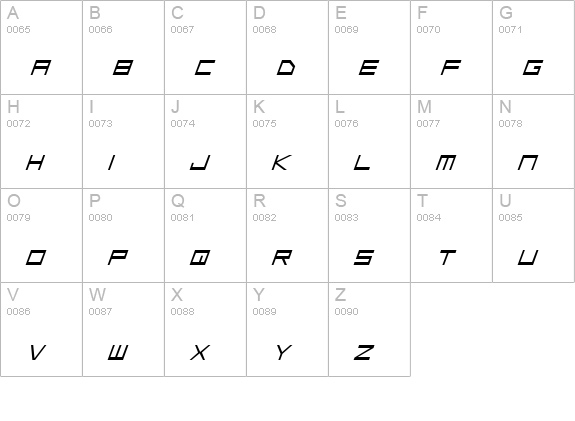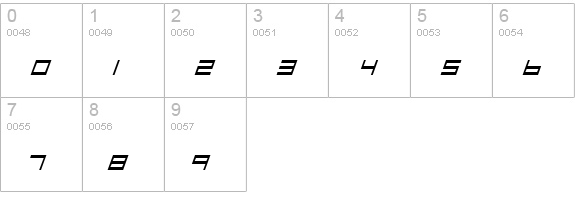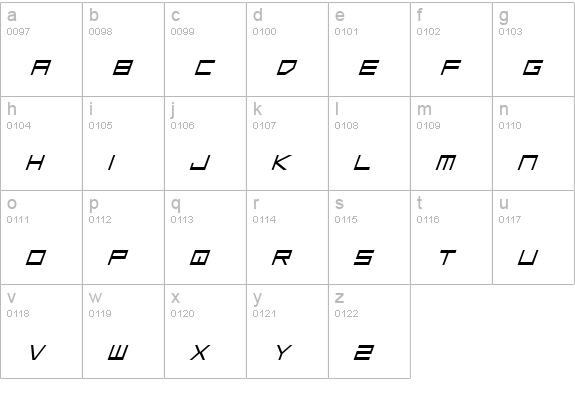
Low Gun Screen Italic is a distinctive, italic variant in the Low typeface family \xE2\x80\x94 well suited to design and typography projects.
Introducing Low Gun Screen Italic font, a sleek and modern typeface that exudes sophistication and style. With its unique italic design, this font adds a touch of elegance to any project. Perfect for branding, logos, headlines, and more, Low Gun Screen Italic is a versatile choice for designers looking to make a statement. What's even better is that Low Gun Screen Italic is completely free to download at FontsMarket.com. Whether you're a professional designer or just starting out, this font is a valuable addition to your collection. Don't miss out on the opportunity to elevate your designs with the stunning Low Gun Screen Italic font. Download it today and enhance your creative projects with this beautiful typeface.